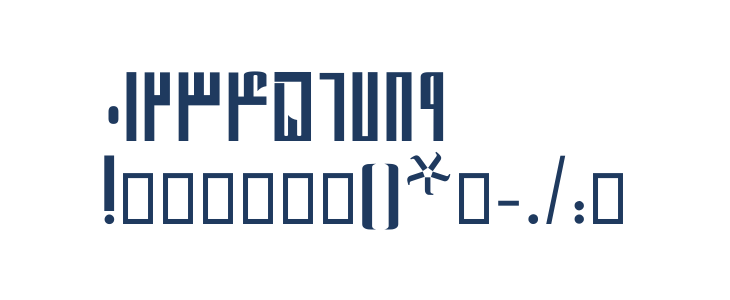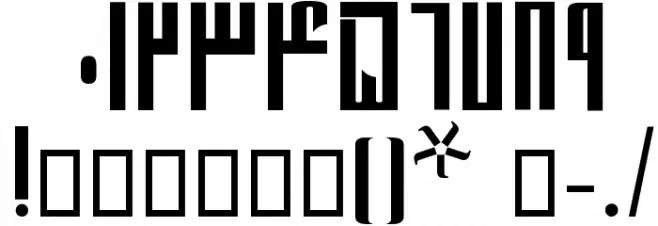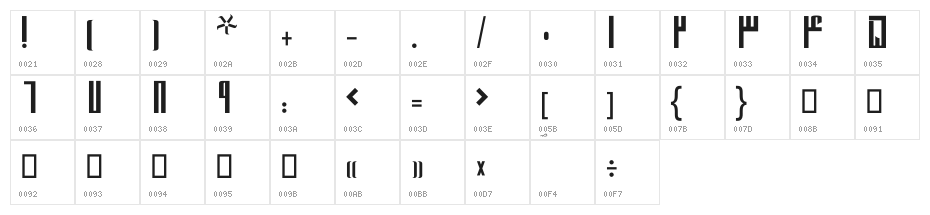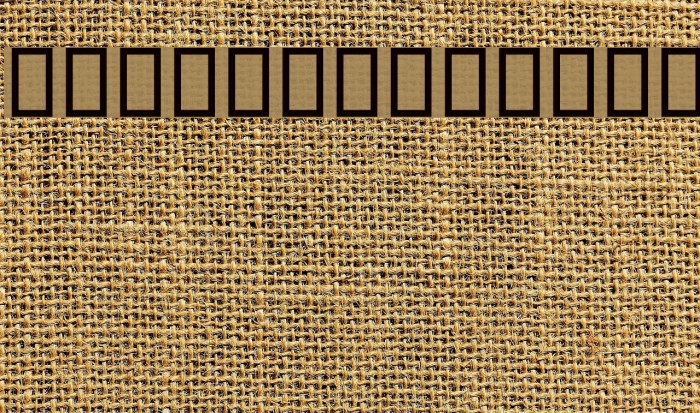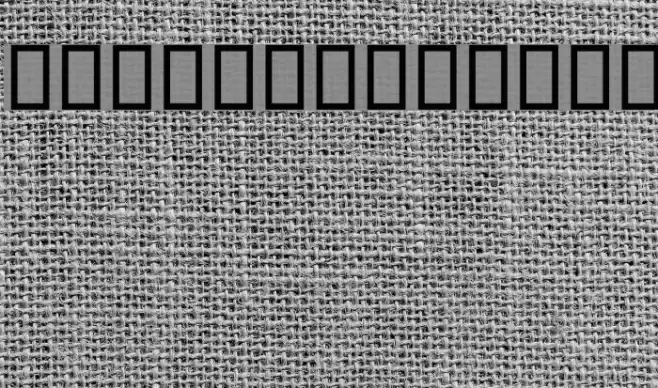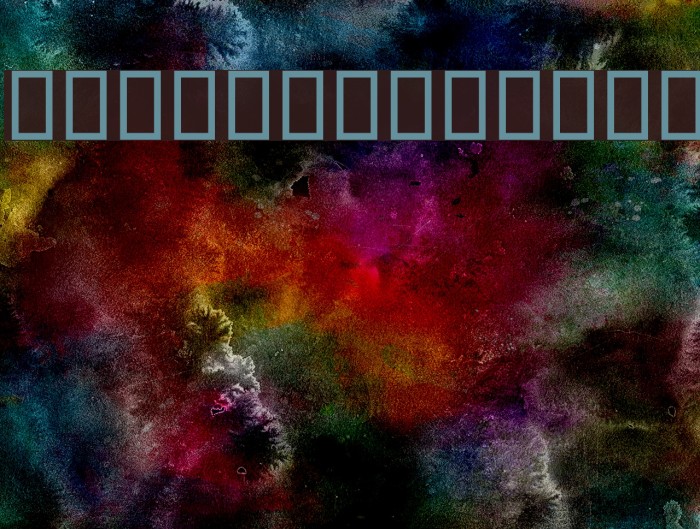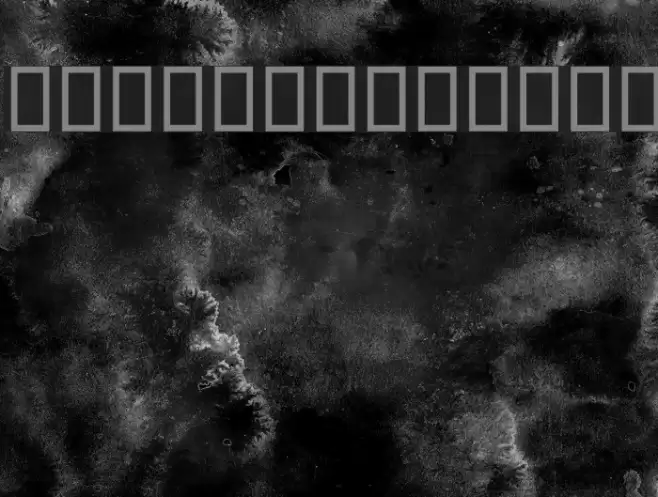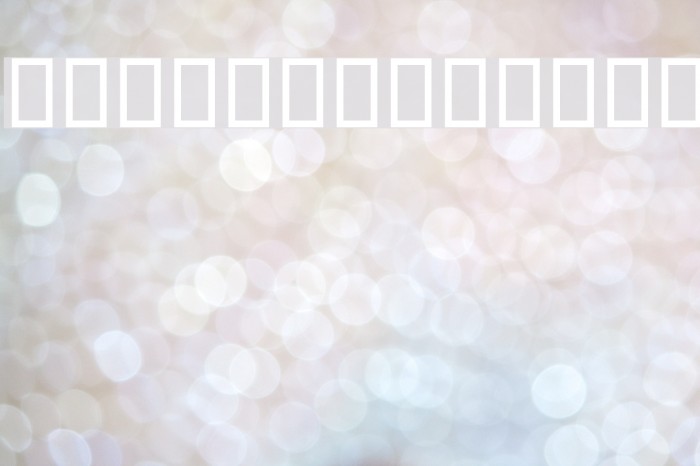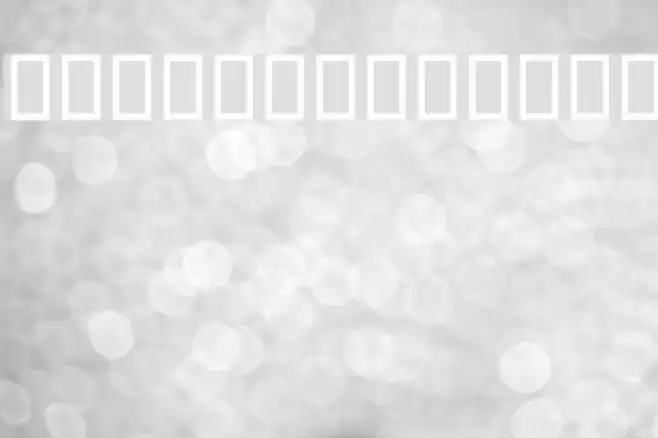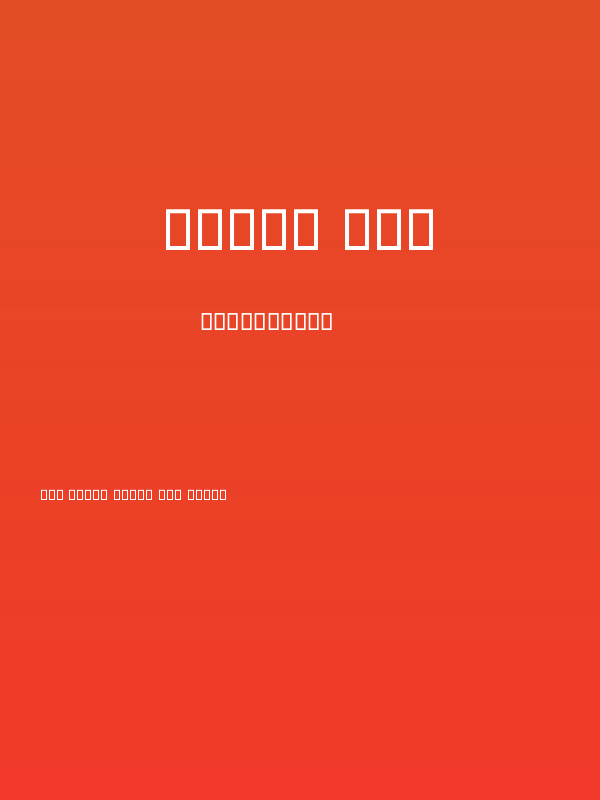
Amood VII Font
Amood VII Description
This font features a bold and striking design with a modern, futuristic aesthetic. The characters are tall and narrow, with sharp angles and clean lines that convey a sense of precision and technological advancement. The uniformity in height and width across the characters creates a cohesive and structured appearance. The font's geometric nature is emphasized by its consistent stroke width, which adds to its sleek and contemporary look. It is well-suited for projects that require a strong visual impact and a modern touch.
Proposed ProjectsIdeal for technology branding, sci-fi posters, video game titles, and modern advertising.